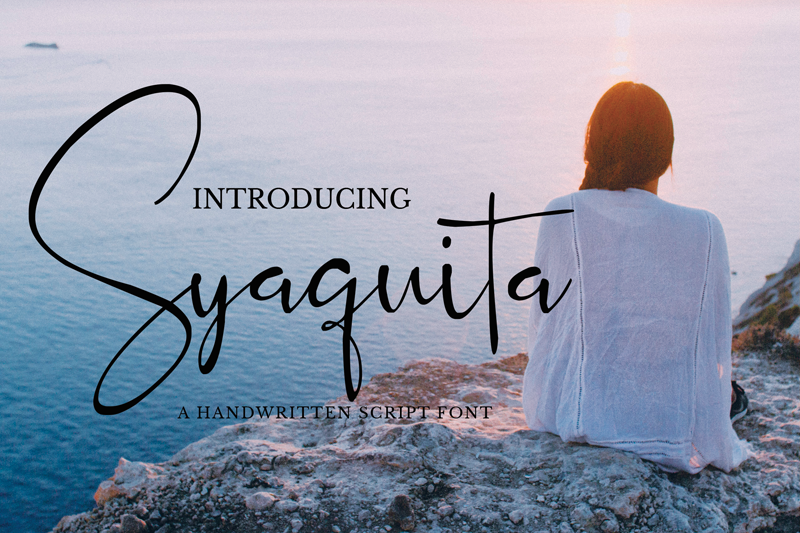
Preview and download Syaquita Font. Created by Saeful Bahri in Script Handwritten styles with Demo license.
Font name: | Syaquita |
Author: | Saeful Bahri |
Syaquita - the natural signature font, from Amaira Creatype, is a naturally beautiful & classy signature font. Syaquita is perfect for branding, photography, invitations, quotes, watermarks, advertisements, product designs, labels, and much more! |